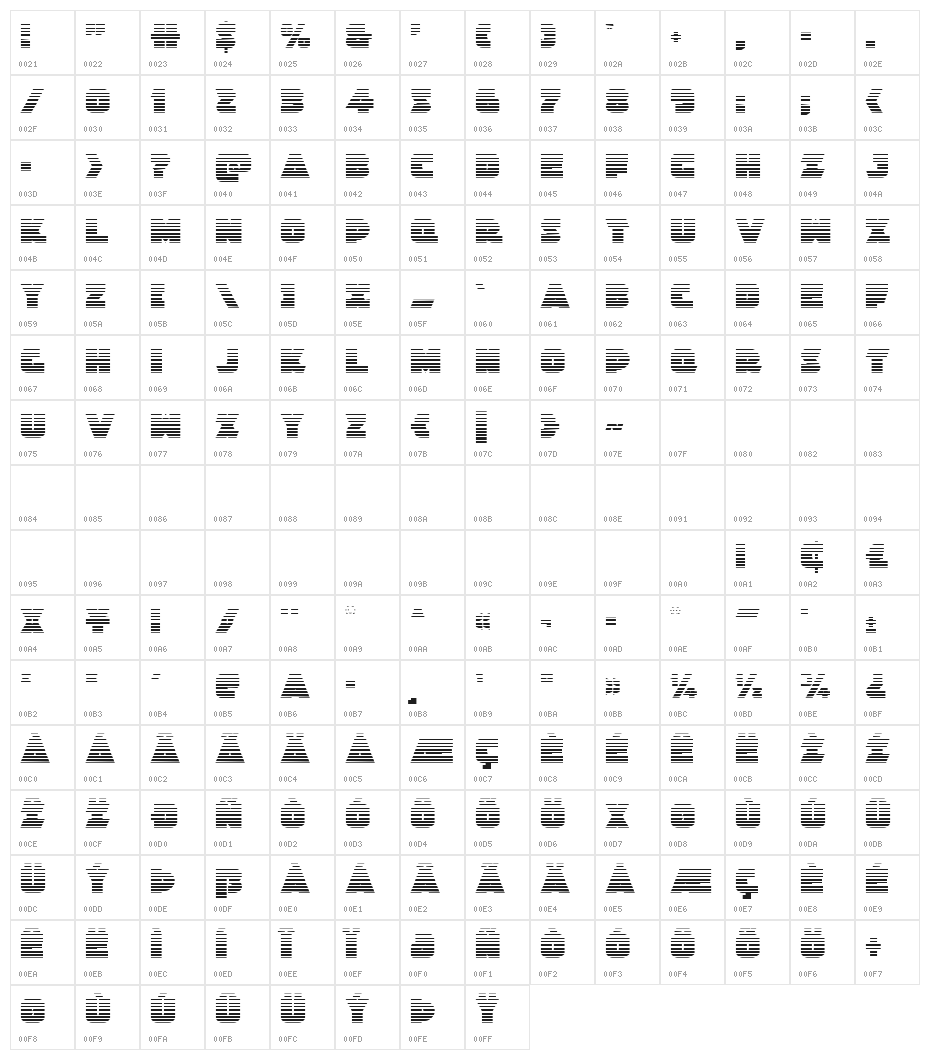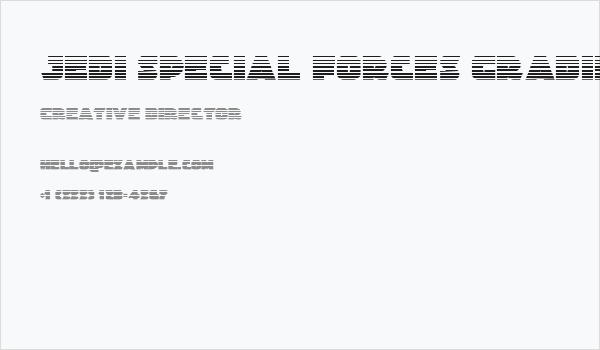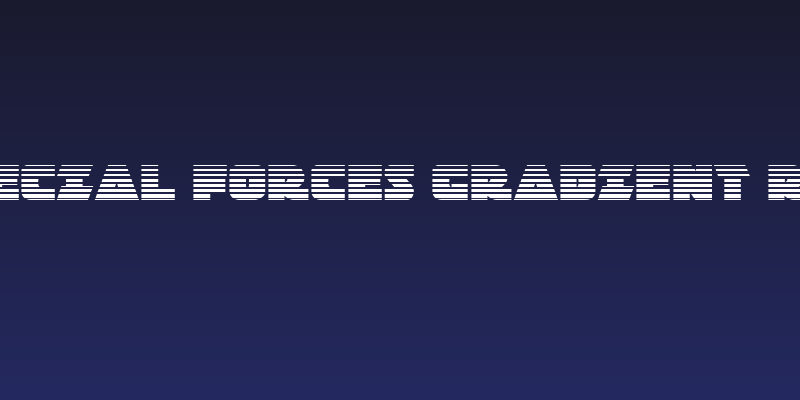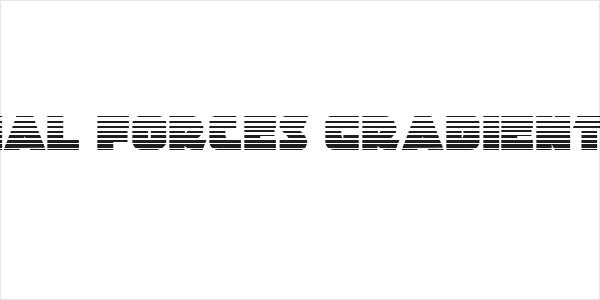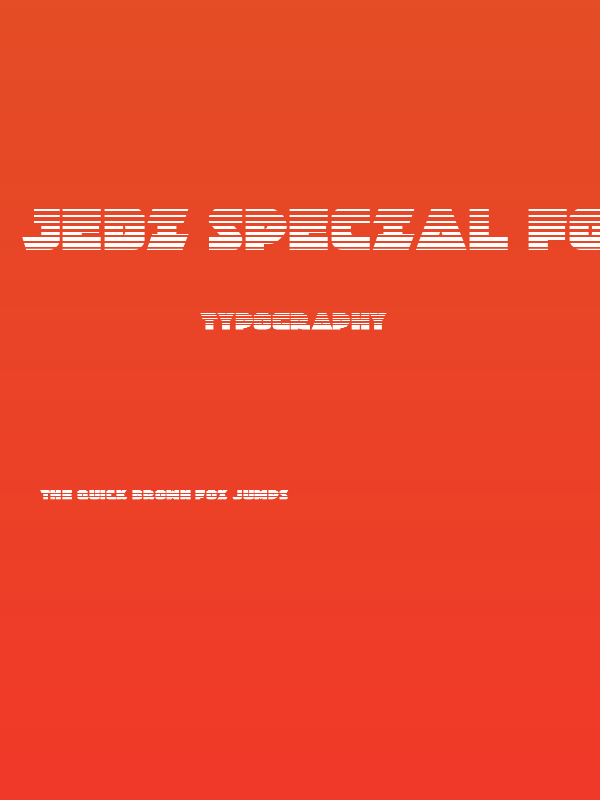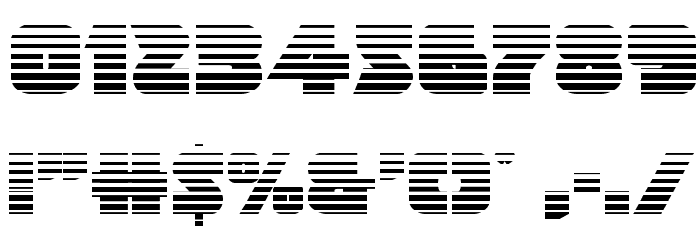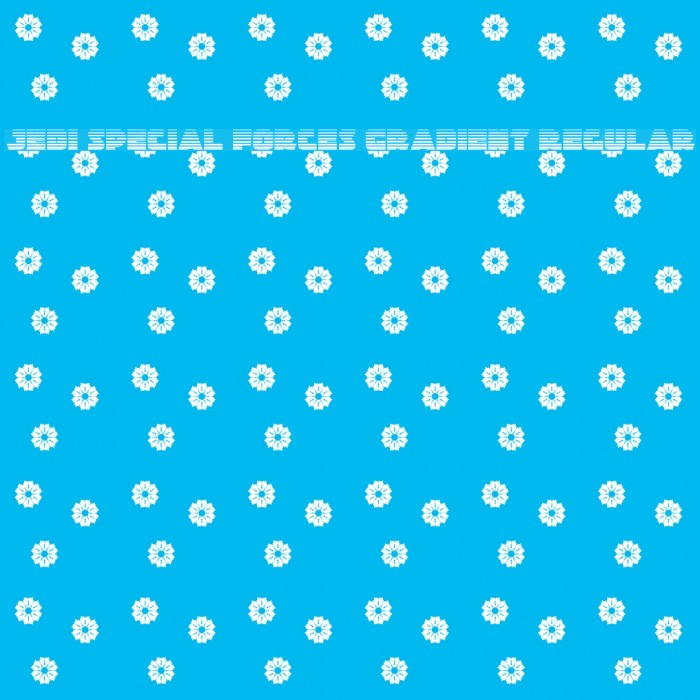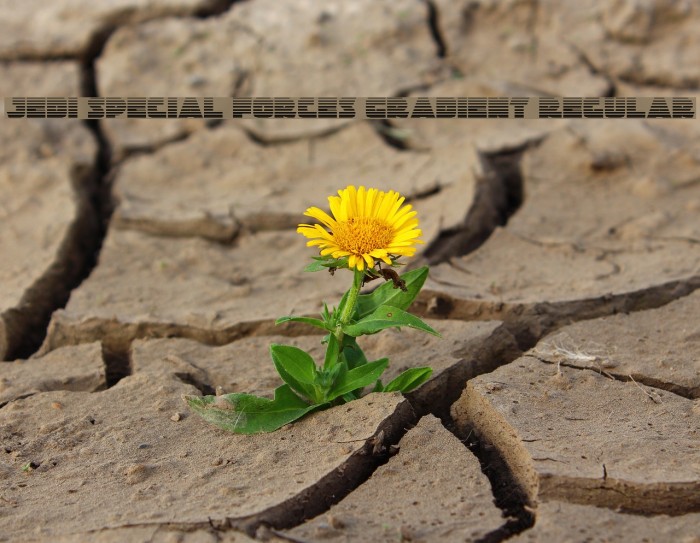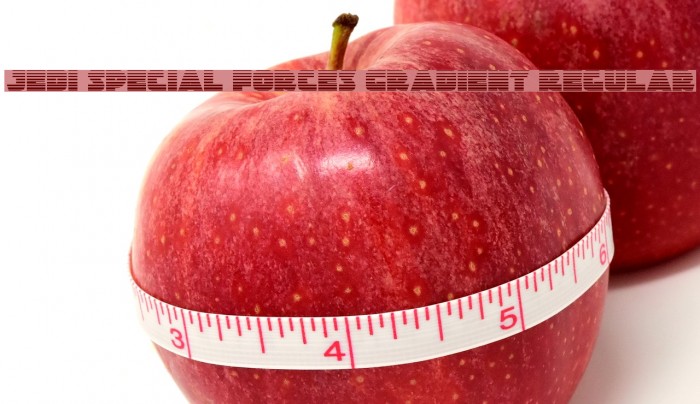
Jedi Special Forces Gradient Regular Font
Jedi Special Forces Gradient Regular Description
This font features a bold, futuristic design with a unique gradient effect created by horizontal lines that form each character. The uppercase and lowercase letters, as well as numbers and special characters, maintain a consistent style, emphasizing a modern and tech-inspired aesthetic. The characters are wide and blocky, with a strong presence that makes them ideal for impactful designs. The horizontal lines vary in thickness, adding a dynamic visual interest and a sense of movement. This font is perfect for projects that require a bold statement and a contemporary look.
| Proposed Projects | Ideal for sci-fi themed posters, video game titles, tech company logos, and modern branding materials. |